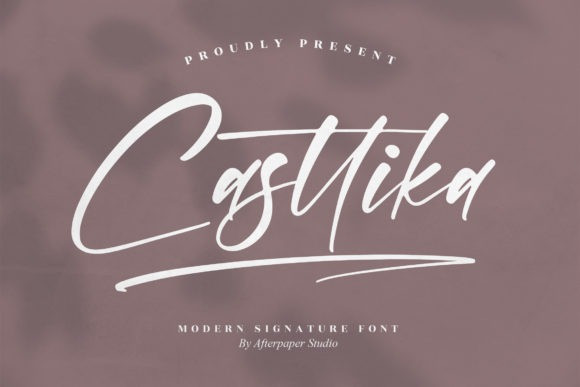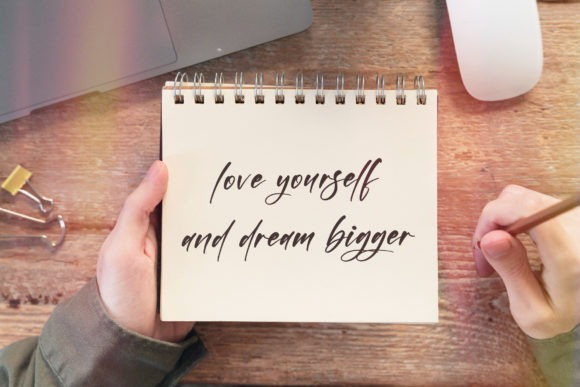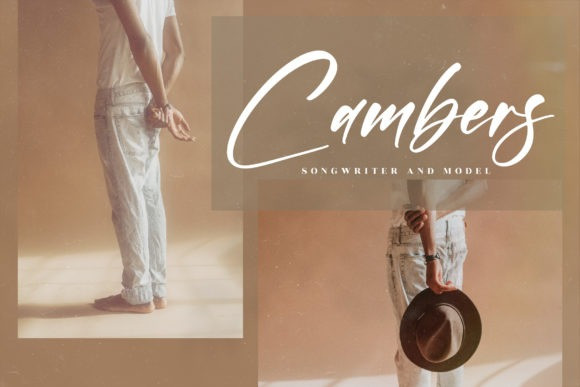
Casttika Font
Casttika is a modern signature font, suitable for any projects such as logos, branding projects, homeware designs, product packaging, mugs, quotes, posters, shopping bags, t-shirts, book covers, name cards, invitation cards, greeting cards, labels, photography, watermark, or special events.